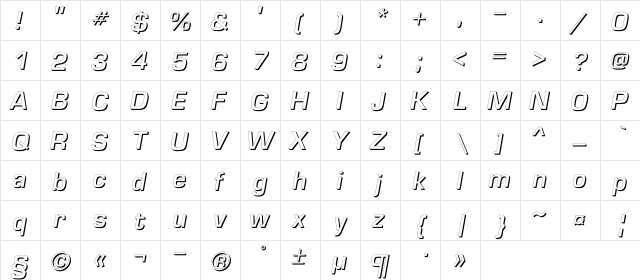
EuropeShadowC Italic Font Preview
EuropeShadowC Italic
Design Context for EuropeShadowC Typeface
EuropeShadowC is built around its visual character rather than neutral utility — its distinctive forms are designed to make an impression at display sizes. The slanted form adds forward momentum and visual energy.
Font Pairing: Pair with a clean neutral sans-serif for body copy to let EuropeShadowC's character lead without overwhelming the composition.
Pro Tip: Use EuropeShadowC exclusively at display sizes — it was designed to be seen, not read at length. Let a neutral companion handle body copy.